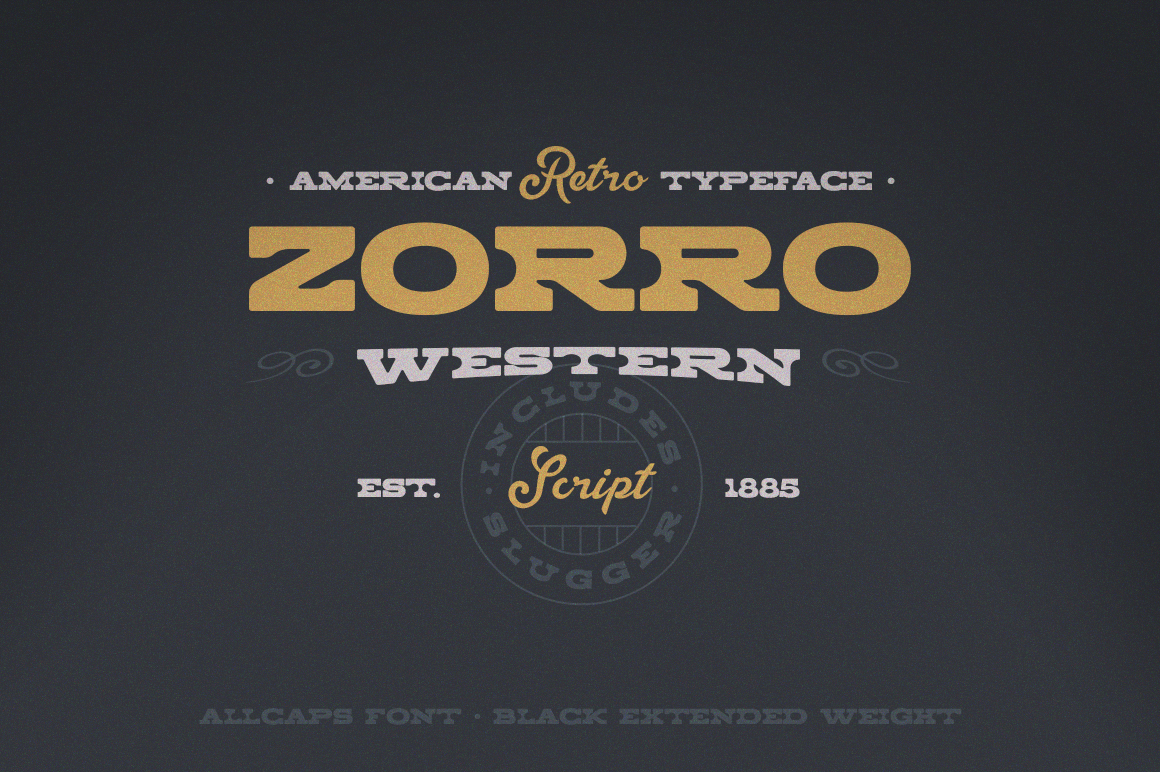
Zorro Font Duo
Zorro is an American retro black extended typeface inspired by a western-style of design with an all caps only characters alphabet, which includes all the standard punctuation, and international characters for multi-language support, bold strong serif flairs combine with the long straight lines, round corners, and tight spacing between glyphs help to place any design to a time period where the law and wild collide, it uses as a duo Slugger script font to complement and define its timeless look and feel.